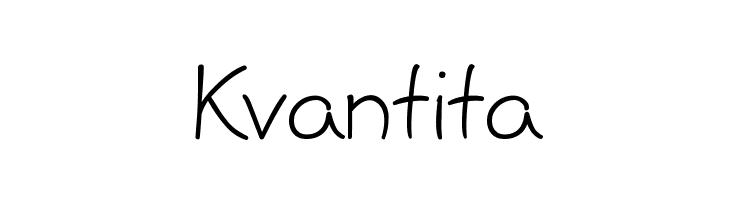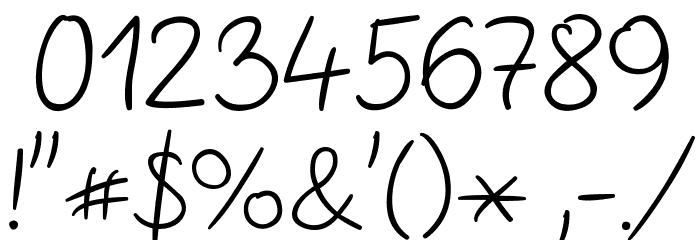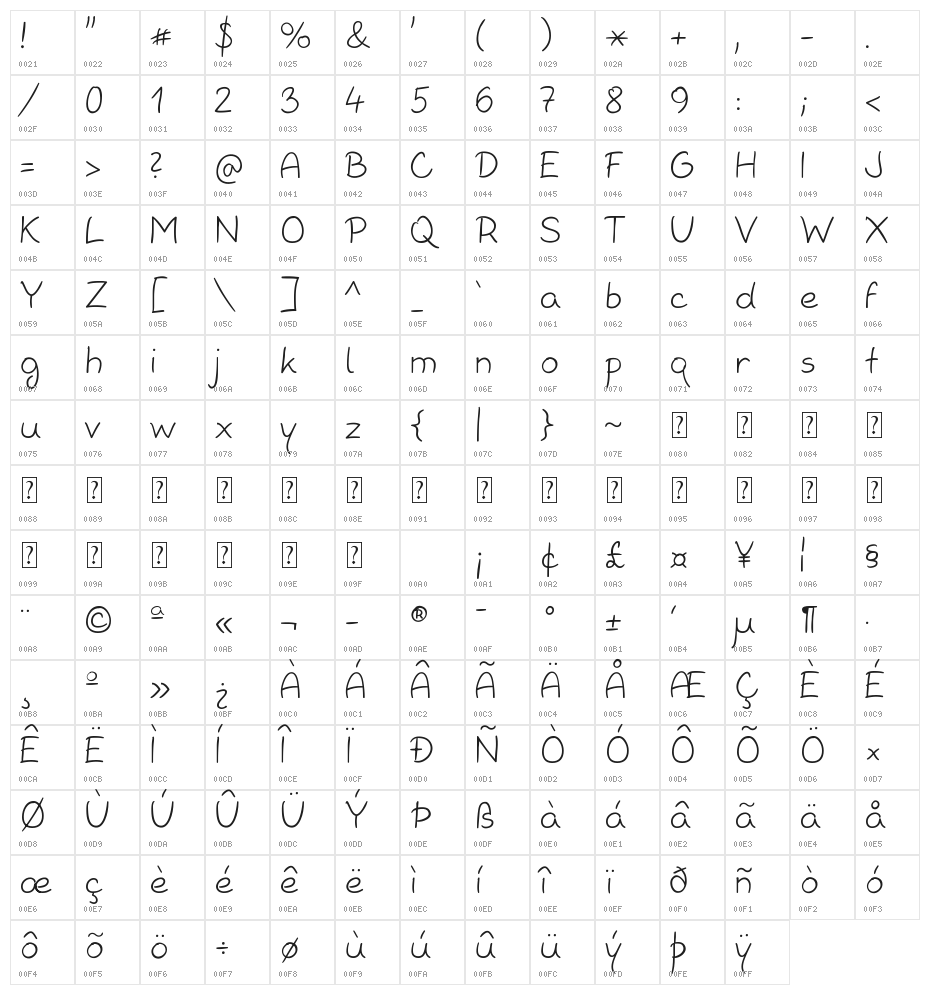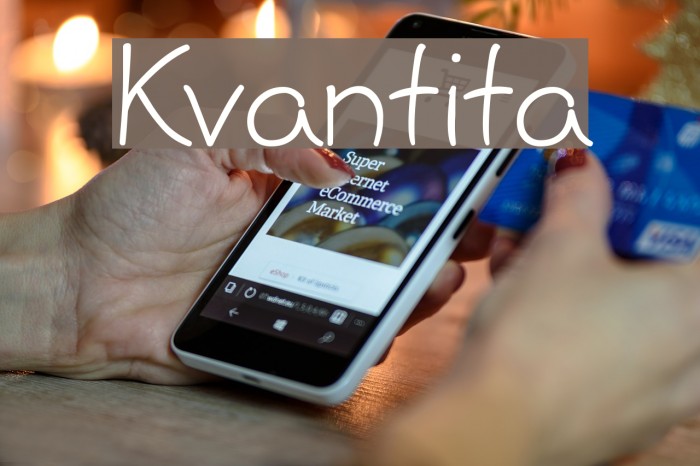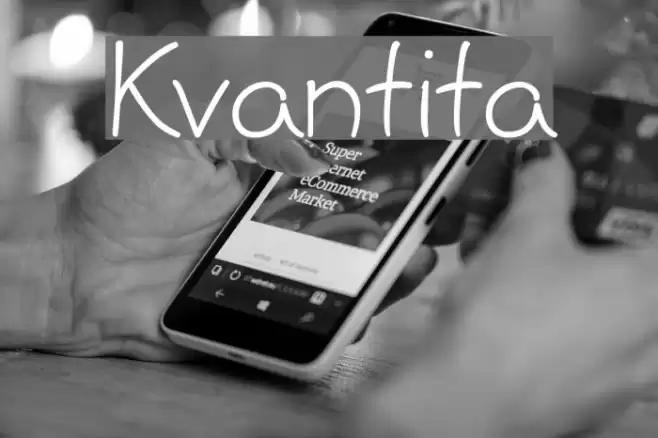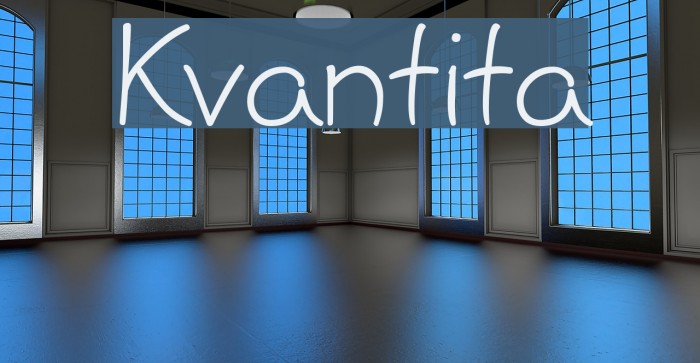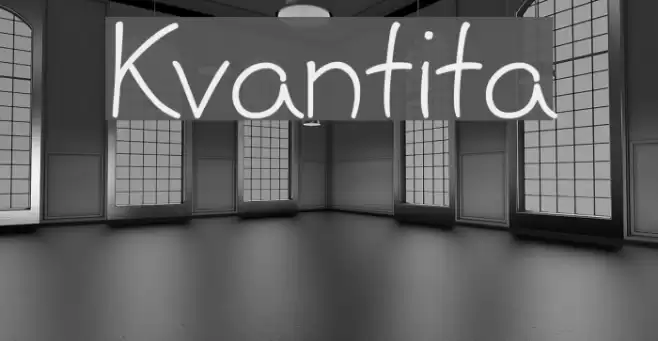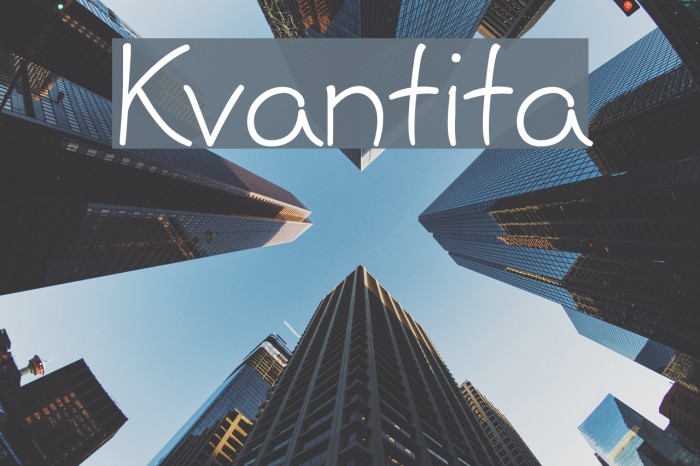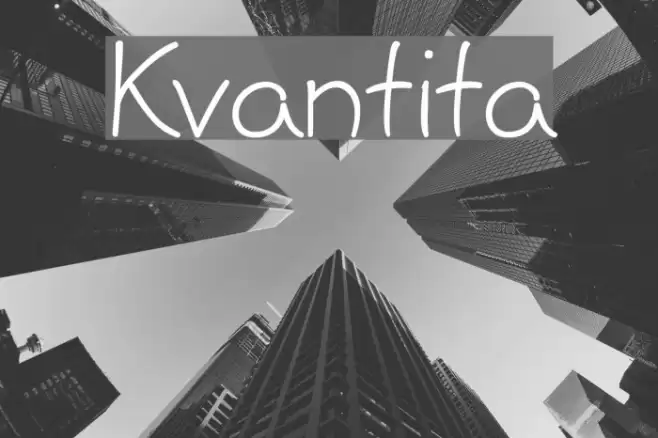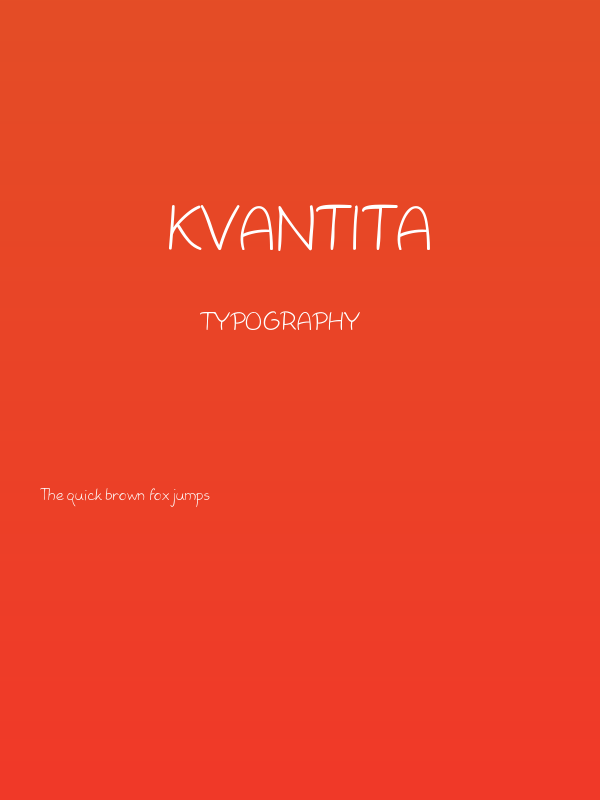
Kvantita Font
Kvantita Description
This font features a playful and casual handwritten style, characterized by its smooth, flowing lines and rounded edges. The letters have a consistent stroke width, giving it a uniform appearance. The uppercase letters are slightly taller than the lowercase, maintaining a friendly and approachable look. The numerals and special characters are designed to match the overall style, ensuring cohesion throughout. This font is versatile, suitable for both digital and print media, and can add a personal touch to any project.
| Proposed Projects | Ideal for greeting cards, children's books, personal blogs, and informal branding. |